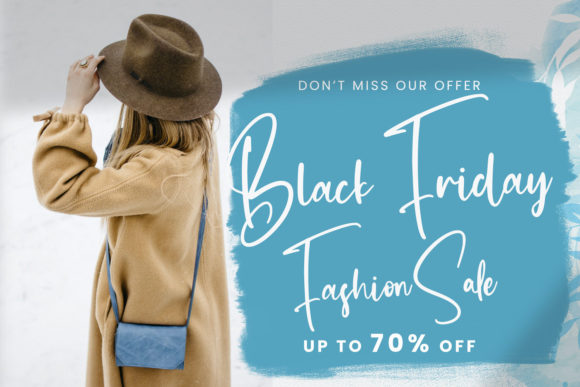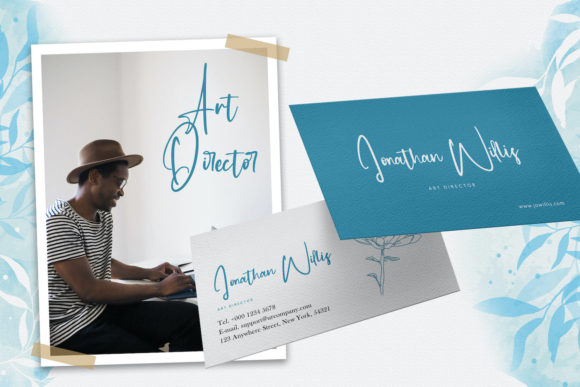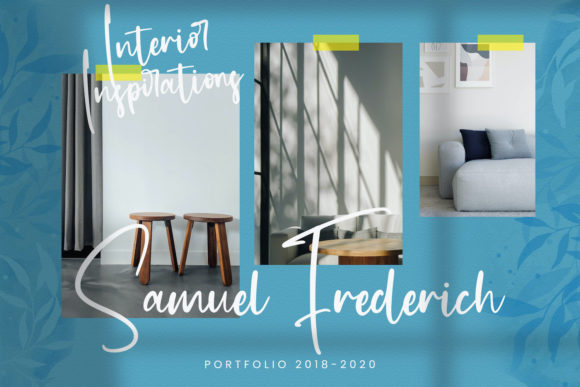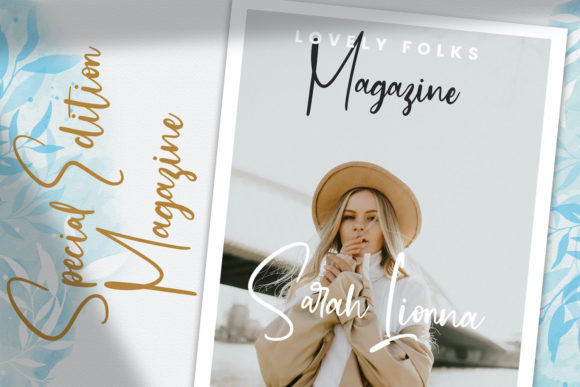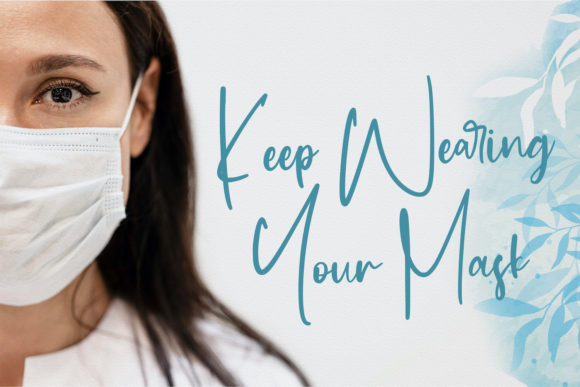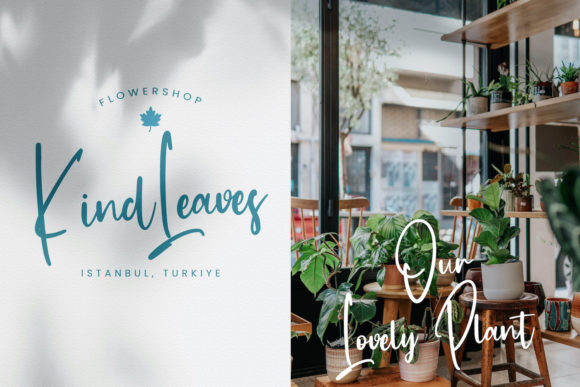
Bella Pilatry Font: Elevate Your Design with Luxurious Cursive Script
In the world of typography, fonts play a pivotal role in bringing a design to life. Among the myriad of fonts available, the Bella Pilatry Font stands out for its unique blend of asymmetry, delicacy, and cursive elegance. This article aims to explore the Bella Pilatry Font in depth, understanding its characteristics, and how it can add a touch of luxury to your design projects.
What is Bella Pilatry Font?
Bella Pilatry is described as an asymmetrical, delicate, and cursive script font. Unlike traditional fonts that follow a uniform and symmetrical structure, Bella Pilatry breaks the mold with its irregular yet charming alignment. This asymmetry, combined with its delicate strokes, gives it a distinctive and sophisticated look. The cursive nature of the font adds a flow of elegance and smoothness, making it perfect for designs that require a personal touch.
Characteristics of Bella Pilatry Font
- Asymmetrical Design: The font’s irregular alignment gives it a unique and modern appeal.
- Delicate Strokes: Light and elegant strokes ensure that the font exudes sophistication.
- Cursive Script: The flowing script style adds a touch of luxury and refinement.
- Neatly Crafted and Highly Detailed: The meticulous design ensures that the font is clear and readable, even at smaller sizes.
How to Use Bella Pilatry Font in Your Designs
The versatility of the Bella Pilatry Font makes it suitable for a wide range of design projects. Here are some ideas on how to incorporate this luxurious font into your work:
1. Branding and Logos
For brands aiming to convey elegance and sophistication, Bella Pilatry can be a perfect choice. Its unique and luxurious feel can help a brand stand out in a crowded marketplace.
2. Wedding and Event Invitations
The delicate and cursive nature of the font makes it ideal for wedding invitations, event posters, and other ceremonial designs. It adds a personal and intimate feel to the invitation.
3. Fashion and Beauty
In the fashion and beauty industry, aesthetics are everything. Bella Pilatry can be used in product packaging, advertisements, and editorial content to convey a sense of luxury and style.
4. Digital and Print Media
Whether it’s a website, blog, magazine, or brochure, this font can add a touch of elegance to your content. It’s particularly effective for headings and titles where you want to make a statement.
Tips for Working with Bella Pilatry Font
- Pair with Simple Fonts: To maintain balance, pair Bella Pilatry with simpler fonts for body text.
- Adjust Letter Spacing: Experiment with letter spacing to enhance readability and aesthetics.
- Use for Headings: Take advantage of the font’s luxurious feel by using it for headings and titles.
Bella Pilatry Font offers a unique combination of asymmetry, delicacy, and cursive elegance, making it a valuable addition to any designer’s toolkit. Its luxury feel and versatile application areas ensure that it can elevate a wide range of design projects. By incorporating Bella Pilatry into your work, you can add a spark of sophistication and refinement that sets your designs apart.
Whether you’re working on branding, invitations, fashion, or digital media, Bella Pilatry Font is sure to bring a touch of luxury and elegance to your creations. Explore its potential and discover how it can transform your designs.